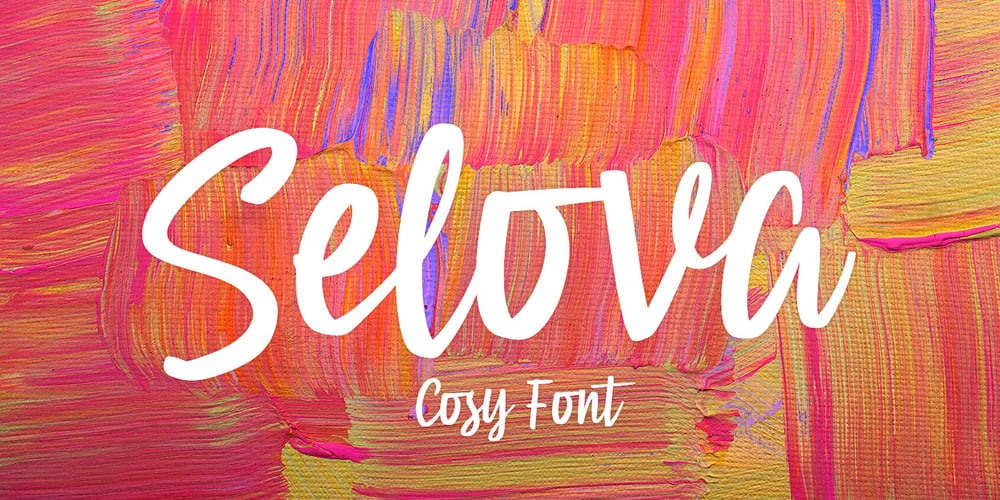
Selova
Selova font
Selova Font Family was designed by Mauli Zari and published by Dhan Studio. Selova contains 1 styles and family package options. Selova is a specially designed font with a soft but warm brush character. It is very suitable for current and future designs because it always looks elegant and not tacky.Suitable for use in title designs such as clothing, invitations, title books, stationery designs, quotes, branding, logos, t-shirts, packaging designs, posters and more.